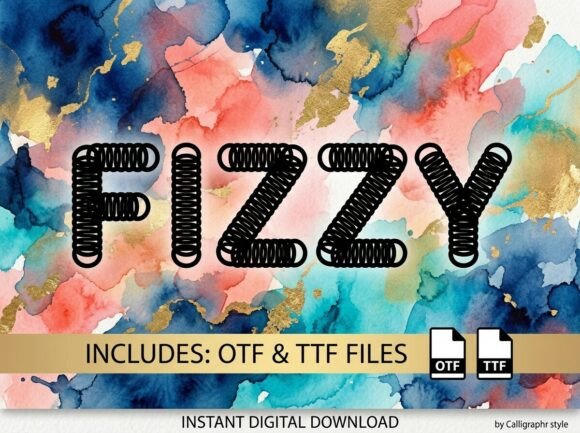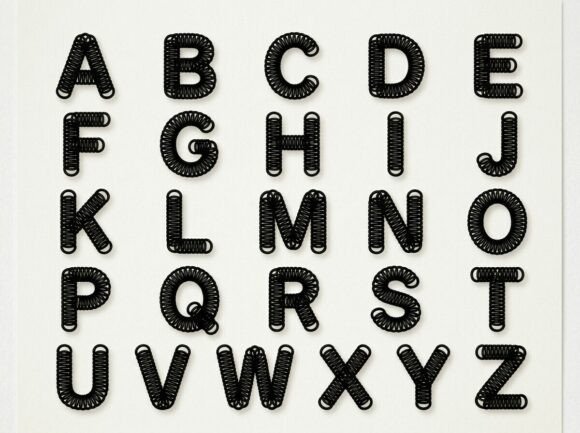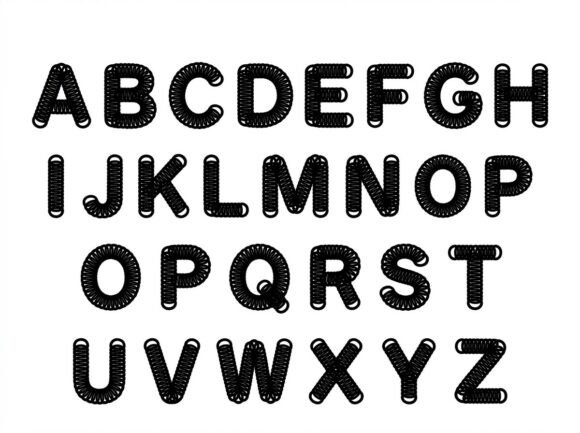
Introducing Fizzy Font: The Ultimate Decorative Display Font
Are you tired of using the same old fonts for your designs? Do you want to add a touch of uniqueness and creativity to your projects? Look no further than Fizzy Font, a stunning decorative display font that’s designed to be the center of attention. With its artistic elements and strong visual personality, this font is perfect for creators who want to break away from the ordinary and make a statement.
What Makes Fizzy Font Special?
Fizzy Font is a versatile font that’s perfect for bold headlines, artistic logos, and creative packaging. Its unique design elements and polished finish make it suitable for a wide range of projects, from branding and advertising to packaging and signage. Whether you’re a designer, crafty DIY enthusiast, or entrepreneur, Fizzy Font is an excellent choice for anyone looking to add a touch of creativity and sophistication to their work.
Before purchasing Fizzy Font, it’s essential to note that this font is an ALL-CAPS (Uppercase Only) display typeface. This means it does not include lowercase letters, making it specifically designed for high-impact headlines, logos, and decorative initials where every letter is a work of art. This unique design approach allows for a more artistic and creative expression, making Fizzy Font perfect for projects that require a bold and eye-catching font.
Use Cases for Fizzy Font
Fizzy Font is perfect for a wide range of projects, including:
- Headlines and Titles: Use Fizzy Font to create bold and attention-grabbing headlines for your blog posts, articles, or social media graphics.
- Logos and Branding: Fizzy Font is ideal for creating unique and memorable logos for your business or brand.
- Packaging and Signage: Add a touch of creativity and sophistication to your product packaging or signage with Fizzy Font.
- Artistic Projects: Fizzy Font is perfect for artists, crafters, and DIY enthusiasts who want to add a touch of elegance and style to their projects.
Tips for Using Fizzy Font
To get the most out of Fizzy Font, here are some tips to keep in mind:
- Use it sparingly: Fizzy Font is a bold and attention-grabbing font, so use it sparingly to avoid overwhelming your design.
- Pair it with a neutral font: Pair Fizzy Font with a neutral font to create a beautiful contrast and add visual interest to your design.
- Experiment with colors and textures: Fizzy Font looks great in a variety of colors and textures, so don’t be afraid to experiment and find the perfect combination for your design.
Fizzy Font is a stunning decorative display font that’s perfect for creators who want to add a touch of uniqueness and creativity to their projects. With its artistic elements, strong visual personality, and versatility, Fizzy Font is an excellent choice for a wide range of projects, from branding and advertising to packaging and signage. So why settle for ordinary fonts when you can make a statement with Fizzy Font?
Whether you’re a designer, crafty DIY enthusiast, or entrepreneur, Fizzy Font is an excellent addition to your font library. So go ahead, get creative, and make a statement with Fizzy Font!